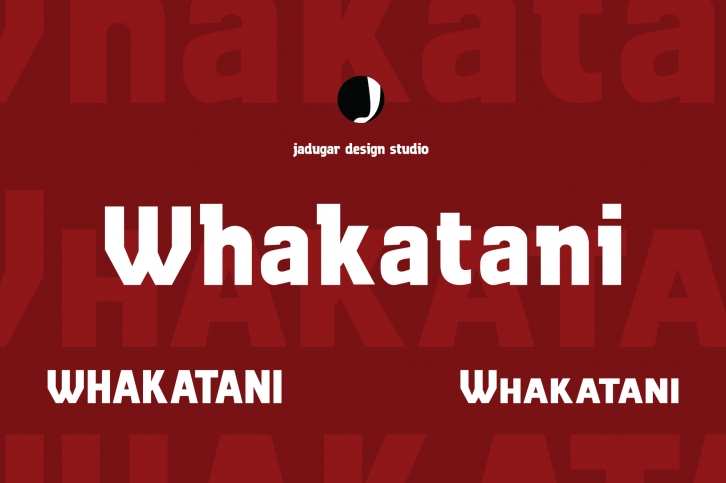
Whakatani is a gorgeous font that was realeased on November 21, 2016. The font can be used in many style contexts and design environments. Perfect for invitations, magazines, websites, logos, and more! It was designed by Jadugar Design Studio and the file size is 3.51 MB. Thanks for checking out this font!